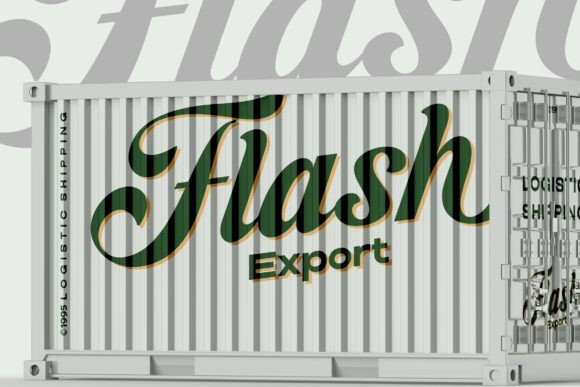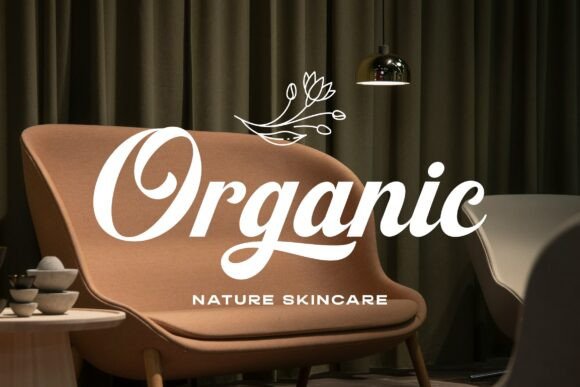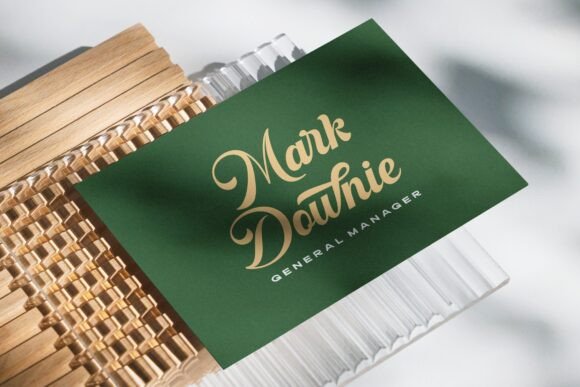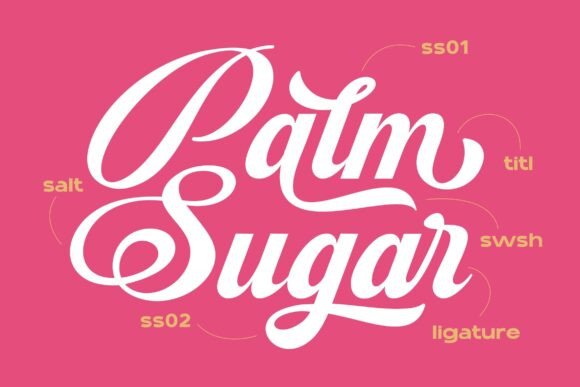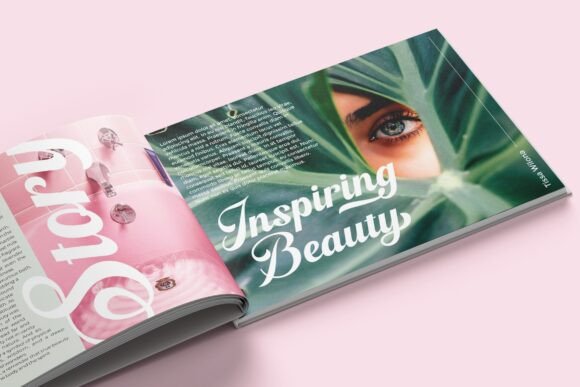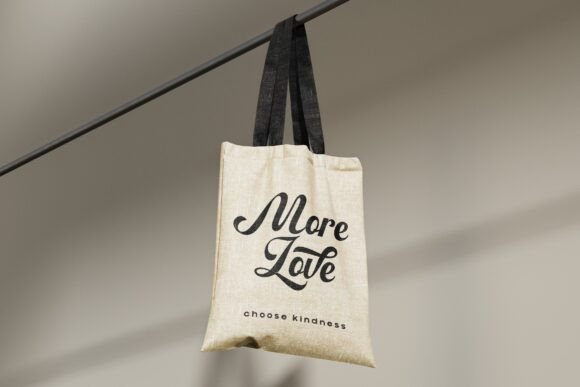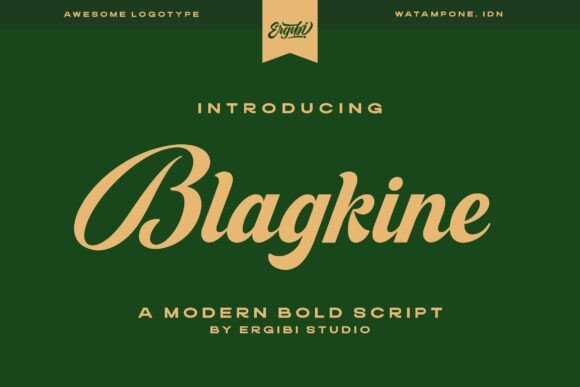
Introducing Blagkine Font: Elevate Your Designs with Bold Elegance
In the world of typography, a font can make all the difference in the success of a design project. Whether you’re a seasoned designer or a crafty DIY enthusiast, finding the right font can be a daunting task. That’s where Blagkine comes in – a bold script font with a classic style that’s sure to elevate your work. In this article, we’ll dive into the features and benefits of Blagkine, and explore how it can add a touch of sophistication and elegance to your creations.
What is Blagkine Font?
Blagkine is a bold script font that exudes confidence and style. Its classic design makes it perfect for a wide range of applications, from logotypes and branding to product packaging and invitations. With its striking and unique appearance, Blagkine is sure to grab attention and leave a lasting impression.
Key Features of Blagkine Font
So, what sets Blagkine apart from other fonts? Here are some of its key features:
- Stylistic Sets: Blagkine comes equipped with stylistic sets, which allow you to alternate between different letterforms and create a unique look for your text.
- Ligatures: The font also features ligatures, which replace common letter combinations with a single, flowing glyph. This creates a more natural and elegant appearance, especially in titles and headings.
- Contextual Alternates: Blagkine’s contextual alternates allow the font to adjust its letterforms based on the surrounding text, creating a more organic and fluid look.
- Multilingual Support: With support for multiple languages, Blagkine is a versatile font that can be used in a wide range of projects, from English to Spanish, French, and more.
Uses for Blagkine Font
Blagkine’s versatility and elegance make it suitable for a variety of design projects, including:
- Logotypes and Branding: Create a bold and memorable logo with Blagkine’s striking letterforms.
- Product Packaging: Add a touch of sophistication to your product packaging with Blagkine’s elegant script.
- Invitations and Stationery: Make your invitations and stationery stand out with Blagkine’s classic and refined design.
- Apparel Design: Use Blagkine to create eye-catching apparel designs that are sure to turn heads.
- Web Design: Add a touch of elegance to your website with Blagkine’s bold and legible font.
- Magazine Covers and Book Titles: Use Blagkine to create striking magazine covers and book titles that grab attention.
Why Choose Blagkine Font?
With so many fonts available, why choose Blagkine? Here are just a few reasons:
- Unique Appearance: Blagkine’s bold script design sets it apart from other fonts, making it perfect for designers and crafters looking for something distinctive.
- Ease of Use: With its extensive features and multilingual support, Blagkine is easy to use in any creative project.
- High-Quality Design: Blagkine is designed with high-quality and precision, ensuring that it looks great in any size or application.
In conclusion, Blagkine font is a bold and elegant script font that’s perfect for designers and crafters looking to elevate their work. With its striking appearance, extensive features, and versatility, Blagkine is sure to become a go-to font in your collection. Whether you’re working on a logotype, product packaging, or web design, Blagkine is the perfect choice for adding a touch of sophistication and elegance to your creations.